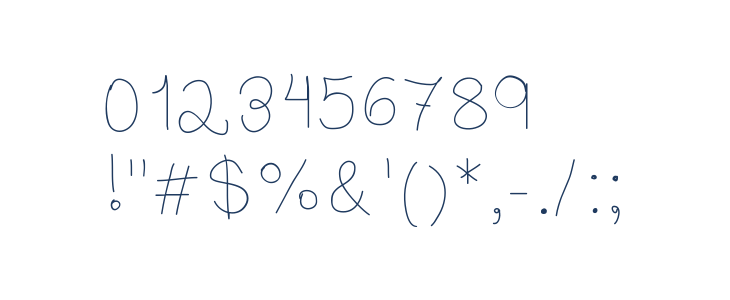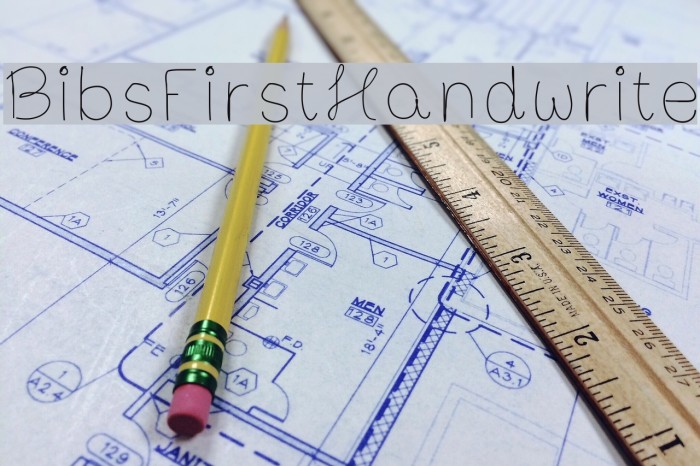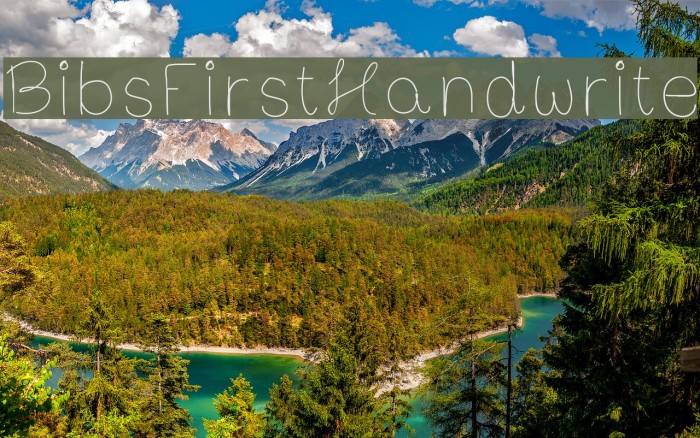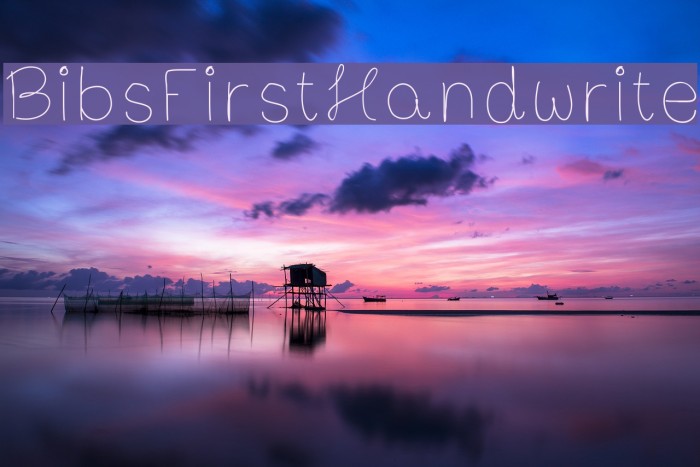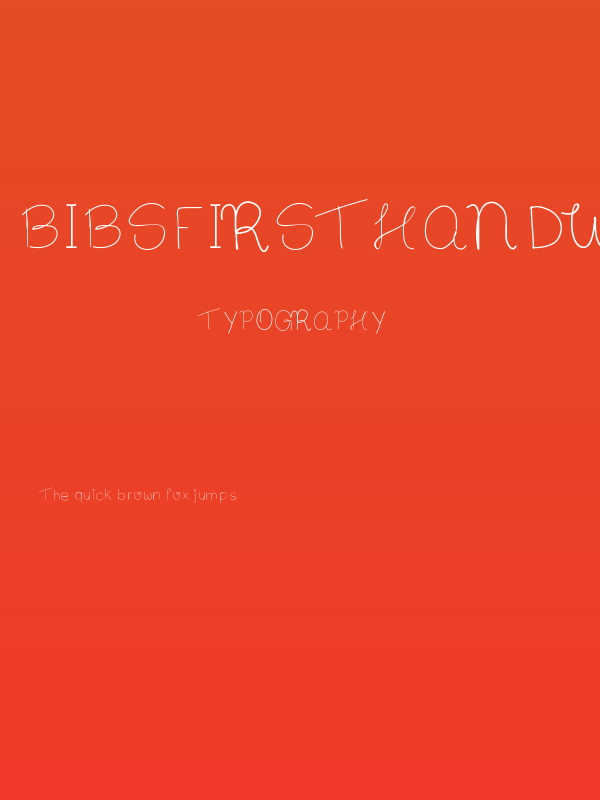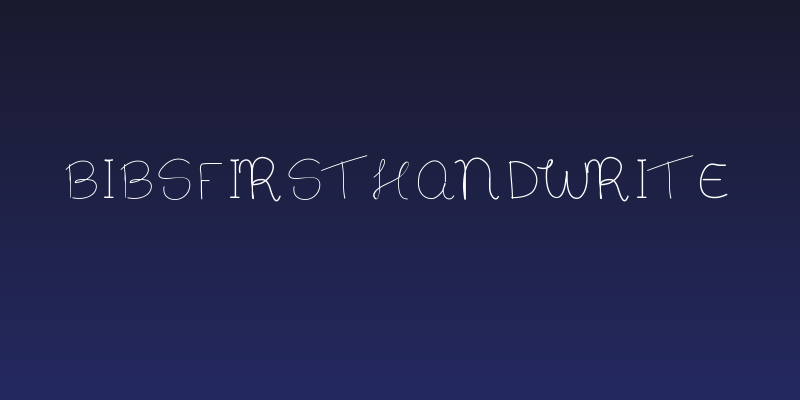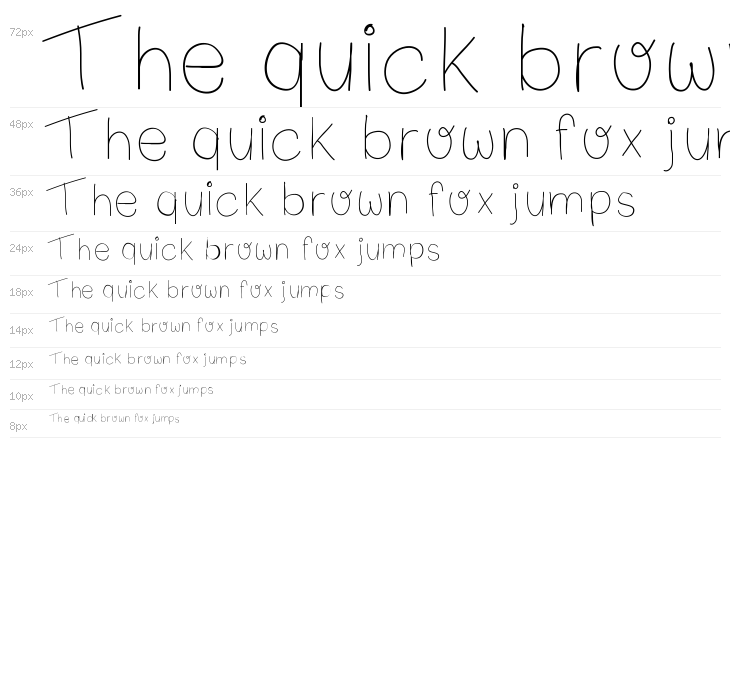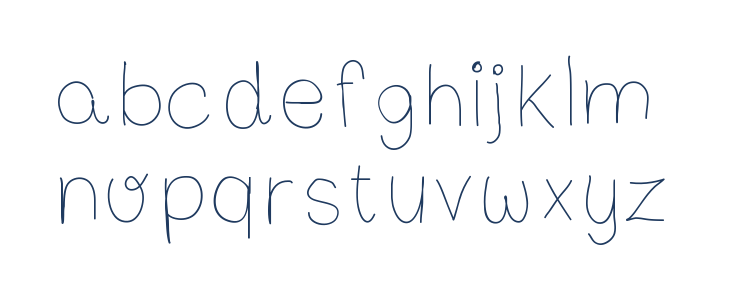
BibsFirstHandwrite Font
BibsFirstHandwrite Description
This font exudes a playful and whimsical charm, characterized by its handwritten style that mimics the fluidity and spontaneity of casual penmanship. The letters are crafted with a light, airy touch, featuring smooth curves and gentle loops that lend an approachable and friendly feel. Each character maintains a consistent stroke width, contributing to a harmonious and balanced appearance. The uppercase letters are slightly more structured, while the lowercase letters exhibit a more relaxed and freeform style. The numerals and special characters are designed with the same playful aesthetic, ensuring a cohesive look across all text. This font is perfect for projects that require a personal, informal touch, such as greeting cards, invitations, or children's book illustrations.
| Overall Style | Playful, Whimsical |
| Use Case | Greeting cards, Invitations, Children's books |
| Proposed Projects | Ideal for greeting cards, invitations, children's books, and casual branding. |